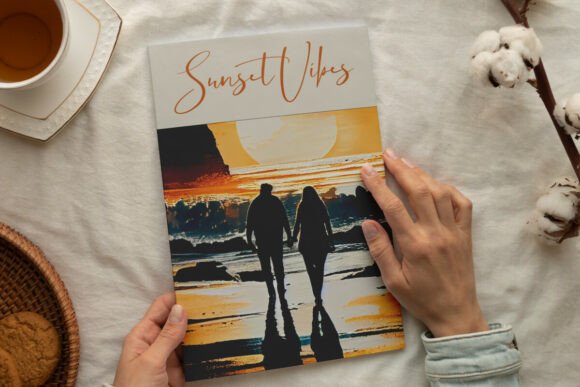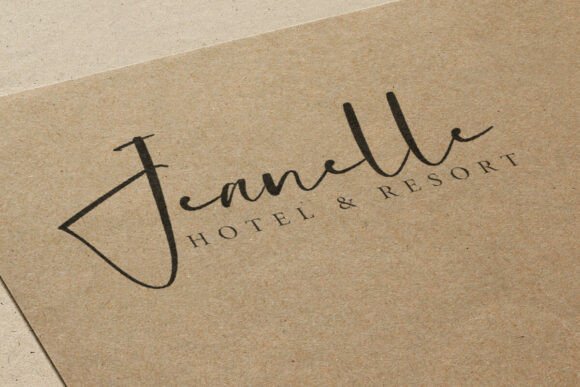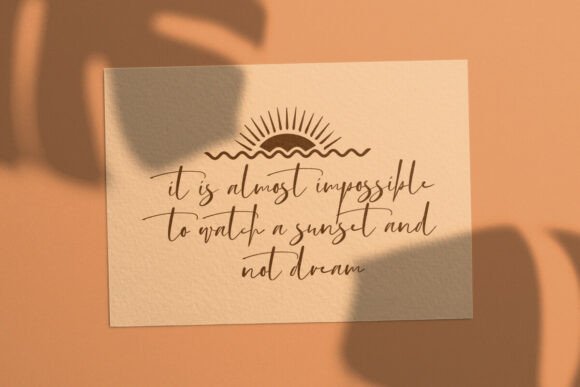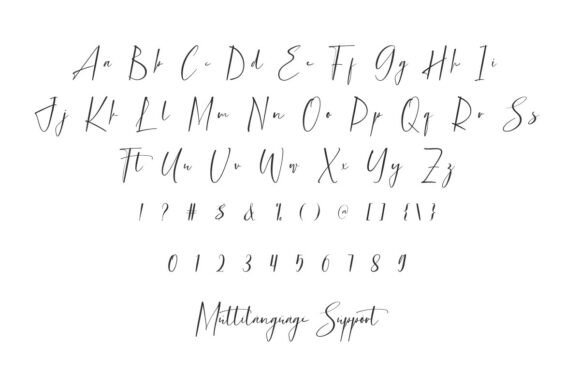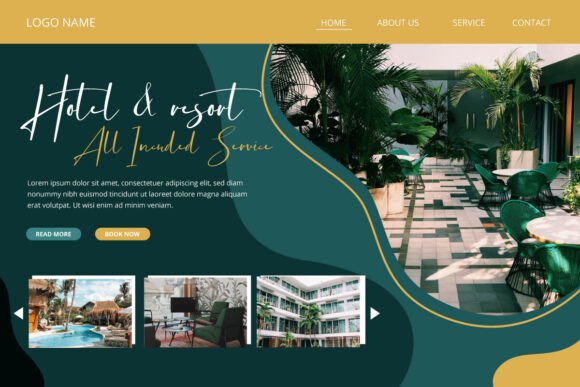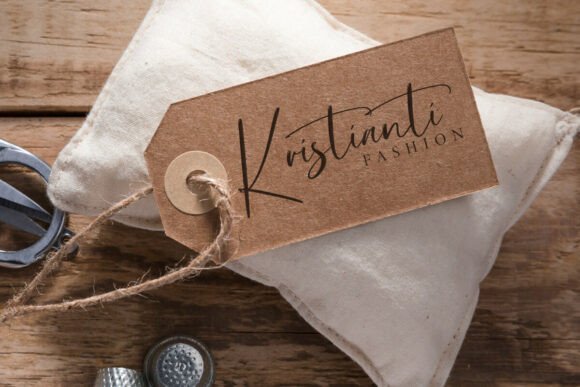
Catching Sunset Font: Elevate Your Designs with a Whimsical and Elegant Touch
Are you looking for a font that can add a personal touch to your designs while exuding a sense of sophistication and relaxation? Look no further than the Catching Sunset Font. This beautiful, handwritten font combines the best of script and signature styles to create a unique and captivating visual experience. In this article, we’ll explore the features and benefits of Catching Sunset Font, and how it can elevate your designs to the next level.
A Whimsical and Elegant Handwritten Font
Catching Sunset Font is a whimsical and elegant handwritten font that captures the relaxed yet sophisticated charm of a beachside retreat. Each character has a smooth, natural flowing stroke, making it perfect for adding a personal touch to a wide range of design projects. Whether you’re working on a blog, card design, cover, greeting card, headers, label, logo, sticker, tags, template, title, or website, this font is sure to impress.
A Blend of Script and Signature Styles
What sets Catching Sunset Font apart is its unique blend of script and signature styles. The font’s fluid curves and varied letterforms mimic the natural rhythm of handwriting, giving it a personal and organic feel. At the same time, its clean, gentle lines ensure readability, making it perfect for both body text and headlines.
Catching Sunset Font is ideal for designers and crafters who want to add a touch of elegance and sophistication to their work. Whether you’re working on a project for a client or creating something for personal use, this font is sure to inspire. Its versatility and flexibility make it perfect for a wide range of applications, including:
- Author and writer projects
- Fashion and beauty designs
- Graphic design and branding
- Hotel and resort marketing materials
- Photography and portfolio designs
- Travel and tourism projects
- Printing and publishing
So, what are the key features and benefits of Catching Sunset Font? Here are just a few:
- Unique and captivating design: Catching Sunset Font has a unique and captivating design that is sure to grab attention.
- Highly versatile: This font is perfect for a wide range of design projects, from body text to headlines.
- Elegant and sophisticated: Catching Sunset Font exudes a sense of elegance and sophistication, making it perfect for high-end designs.
- Easy to read: The font’s clean, gentle lines ensure readability, even at small sizes.
- Personal and organic feel: The font’s fluid curves and varied letterforms give it a personal and organic feel.
- Use it as a headline font: Catching Sunset Font is perfect for headlines and titles, where its unique design can really shine.
- Pair it with a sans-serif font: For body text, pair Catching Sunset Font with a clean sans-serif font, such as Arial or Helvetica.
- Experiment with colors and textures: Don’t be afraid to experiment with different colors and textures to really make your design pop.
In conclusion, Catching Sunset Font is a beautiful and versatile handwritten font that is perfect for designers and crafters who want to add a touch of elegance and sophistication to their work. Its unique blend of script and signature styles, combined with its clean and gentle lines, make it perfect for a wide range of design projects. Whether you’re working on a blog, card design, cover, greeting card, headers, label, logo, sticker, tags, template, title, or website, Catching Sunset Font is sure to impress.